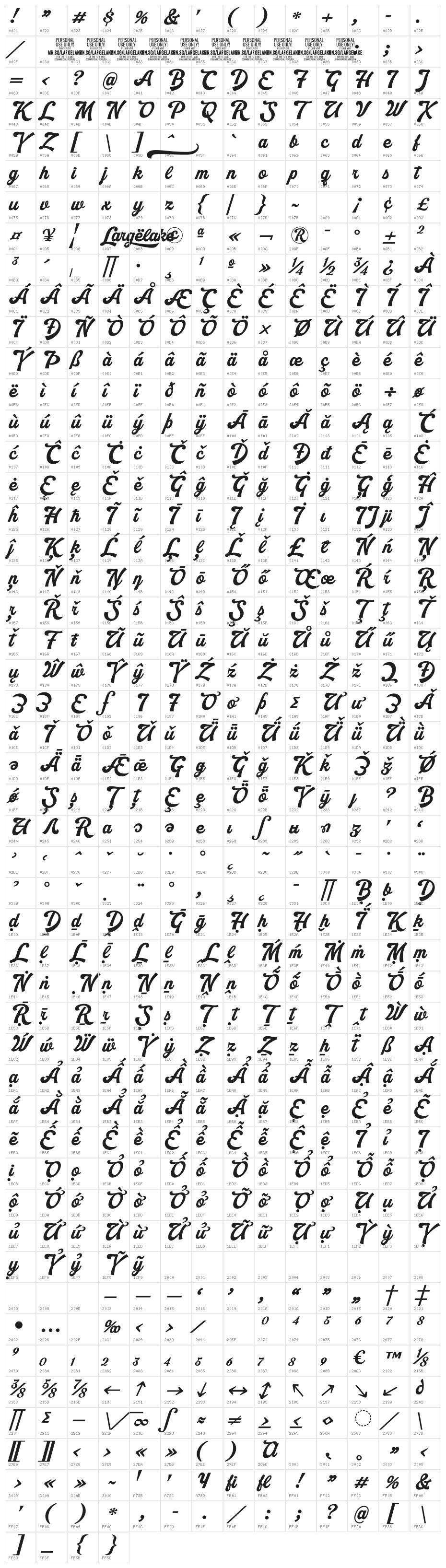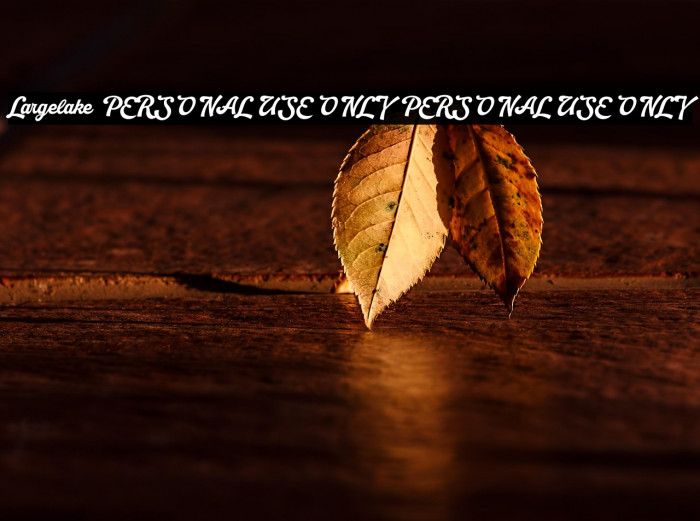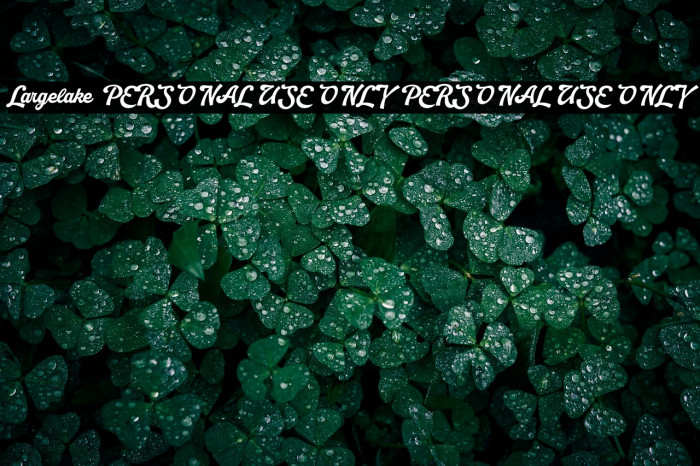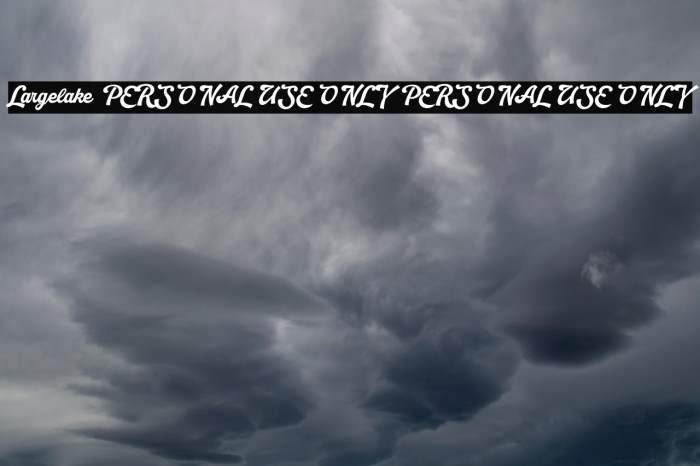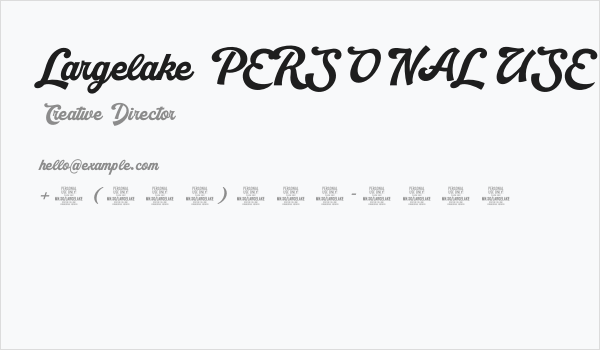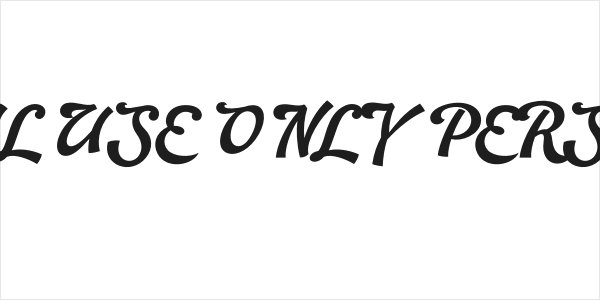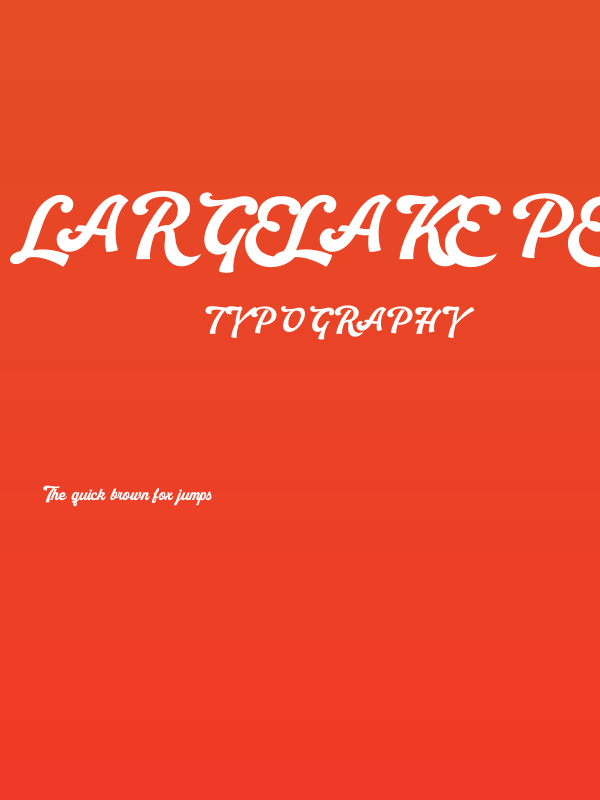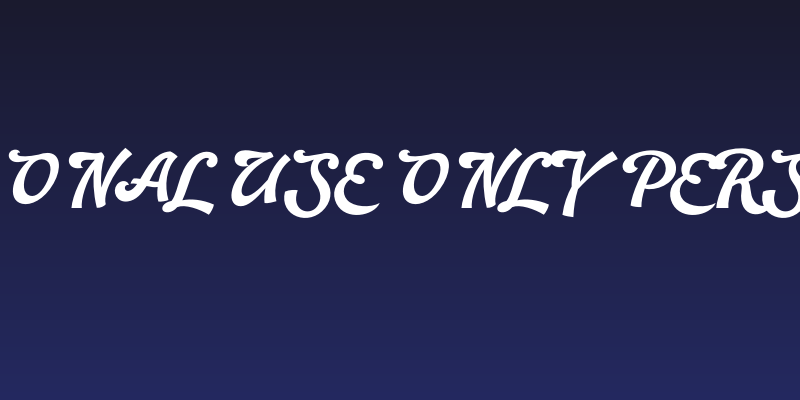
Largelake PERSONAL USE ONLY Font
Largelake PERSONAL USE ONLY Description
This font features a bold, cursive style with a strong emphasis on fluidity and elegance. The uppercase letters exhibit a classic script form with sweeping curves and a sense of movement, while the lowercase letters maintain a consistent flow, enhancing readability. The numerals and special characters are designed to complement the overall script style, adding a cohesive look to any text. The font's bold weight and high contrast between thick and thin strokes make it stand out, ideal for creating a dramatic and stylish impression.
| Overall Style | Elegant, Decorative |
| Proposed Projects | Ideal for wedding invitations, branding, logo design, and elegant signage. |